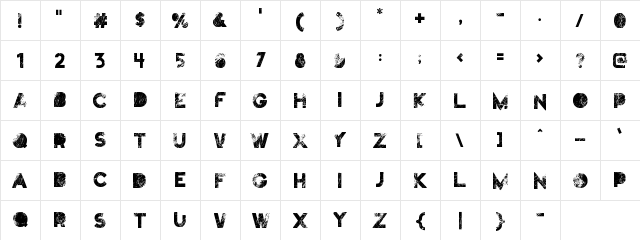
Truskey Regular
Design Context for Truskey Typeface
Truskey is a composed and adaptable typeface that performs quietly and consistently across a wide range of design contexts.